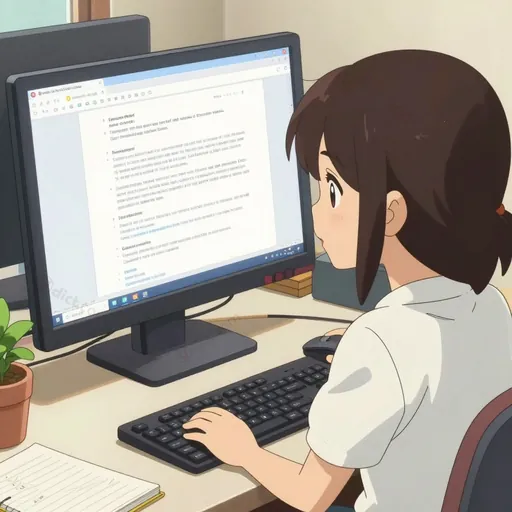
screen font
Definition
Noun: A screen font is a typeface specifically designed and optimized for display on a computer monitor or other digital screens. Its primary purpose is to ensure text is legible and clear at various screen resolutions and sizes. The definition notes that when a screen font closely resembles a specific printed font, a document's on-screen appearance can approximate its final printed output.
Usage
A screen font is used to describe the digital typeface you see when reading text on computers, smartphones, tablets, and other electronic displays. It is a technical term common in computing, graphic design, and digital publishing.
Examples
- Early computer systems used simple, pixel-based screen fonts like Chicago and Geneva for clarity.
- The designer chose a screen font with excellent readability for the website's body text.
- For the ebook to be comfortable to read, a high-quality screen font is essential.
Advanced Usage
- Font Matching/Pairing: In professional desktop publishing, a screen font is often paired with a corresponding printer font. When these are well-matched, it enables What-You-See-Is-What-You-Get (WYSIWYG) editing, where the screen display closely matches the printed page.
- Hinting: A key technical aspect of a high-quality screen font is hinting—instructions embedded in the font file that adjust the shape of characters at small sizes and low resolutions to improve sharpness and legibility on screen.
Variants and Related Words
- Printer Font: The counterpart to a screen font; a font file containing the outlines and data optimized for sending to a printer or other output device.
- Web Font: A font specifically served for use on websites, which is a modern type of screen font delivered via technologies like CSS.
- Bitmap Font: A type of screen font where each character is defined by a pattern of pixels, common in early computing and low-resolution displays.
- System Font: A screen font that is included with an operating system for use in menus, dialog boxes, and other interface elements.
Synonyms
- Display font (in the context of on-screen use)
- Digital typeface
- On-screen font
Related Phrases
- Font smoothing: A display technology (like Apple's antialiasing or Microsoft's ClearType) that makes screen fonts appear less jagged by blending pixel edges.
- Font rendering: The process by which a computer system draws text on the screen using a screen font.
the font that is displayed on a computer screen
when the screen font resembles a printed font a document may look approximately the same on the screen as it will when printed